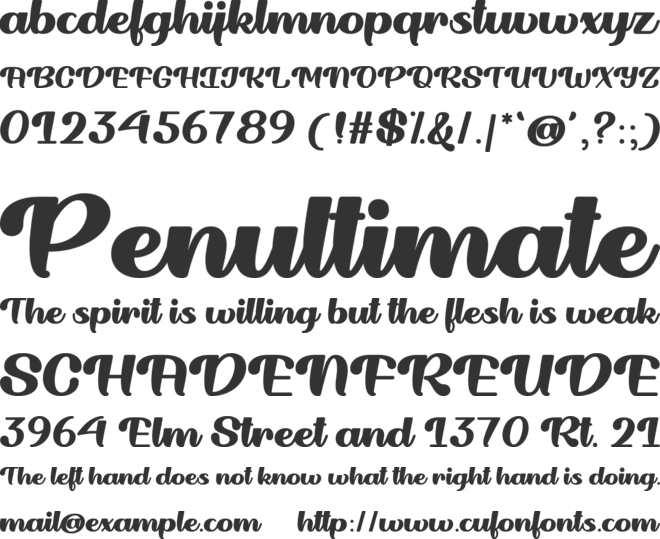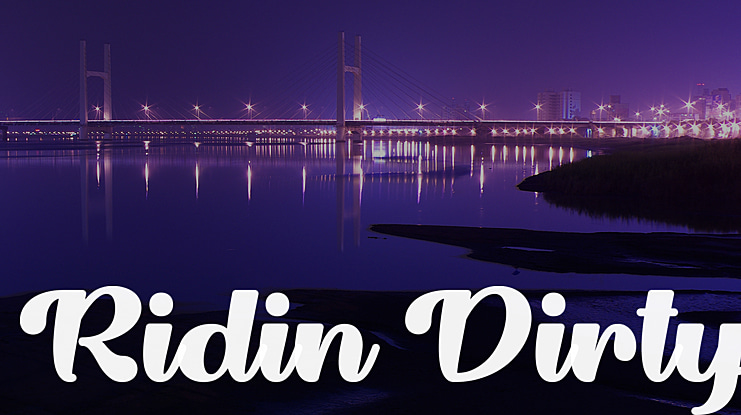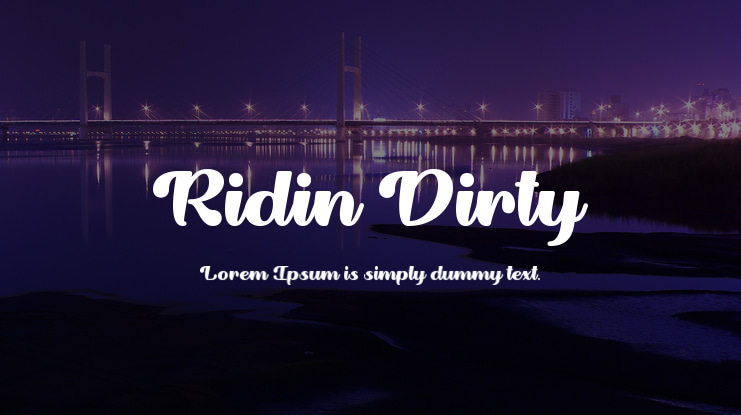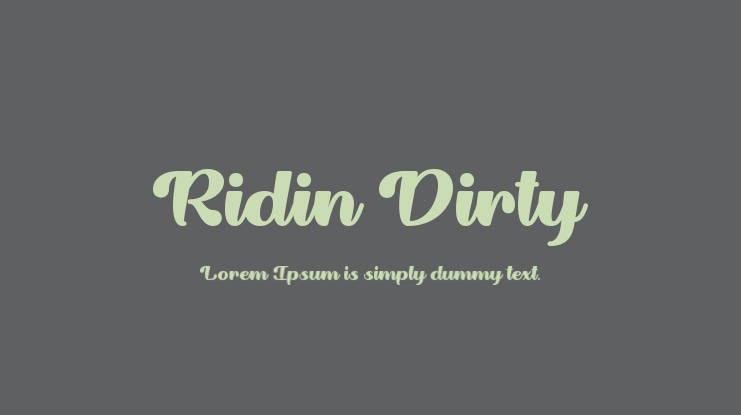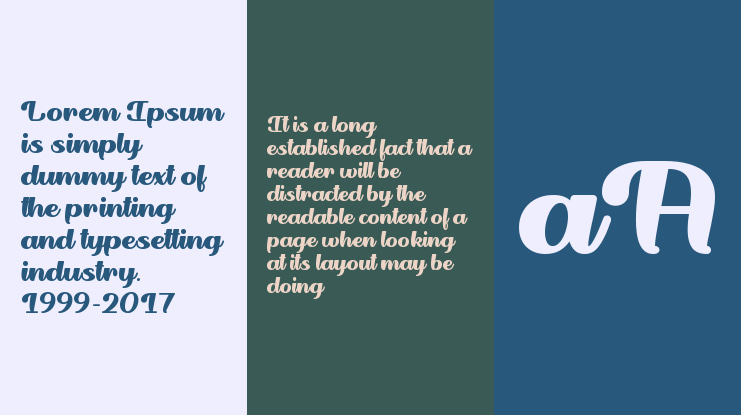
Ridin Dirty Font
SPECIAL SYMBOLS
Type {} (curly braces) for the bigger lowercase beginning and ending swashes
SPECIAL FEATURES
This font contains underline swashes in 15 different lengths to add additional flair and style to your projects!